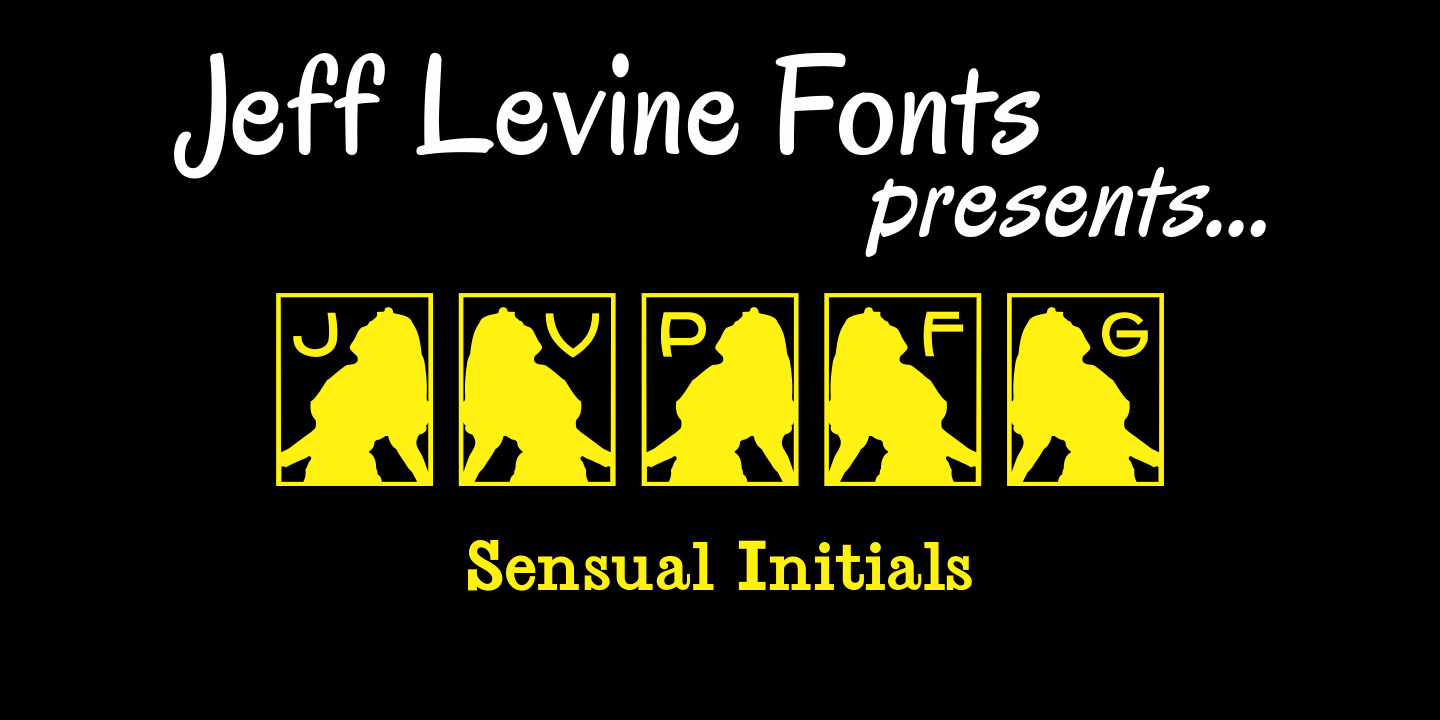
Sensual Initials
Sensual Initials JNL is a revamped and cleaned-up version of an old freeware font by Jeff Levine. Redrawn, and now utilizing the typeface French Art Initials JNL, this set of "Alphadings" [a term coined by Jeff to describe the fusion of alphabet and dingbat into one font] features an alluring silhouette of a woman and a decorative initial. The silhouette faces left on the upper case keystrokes and to the right on the lower case ones.
The perfect application for this font is for drop caps, bookplates and for initials on stationery or labels.